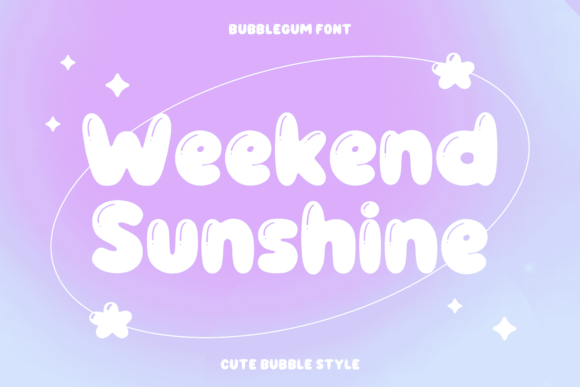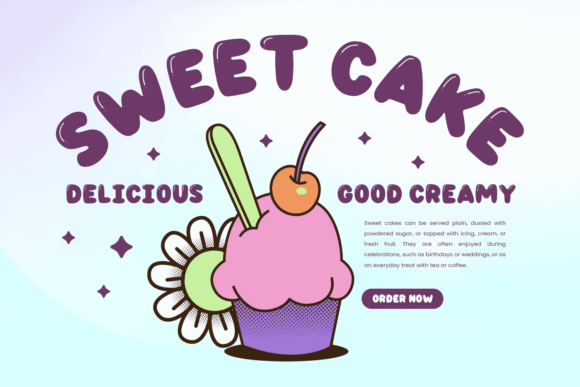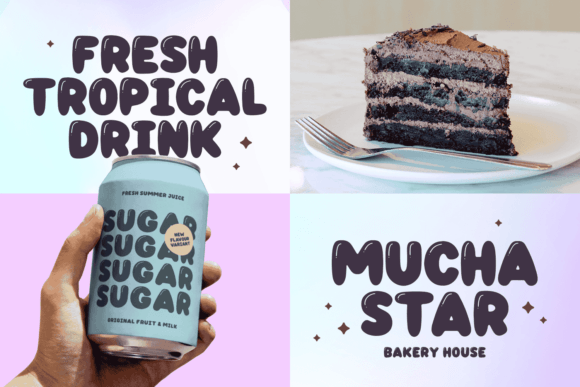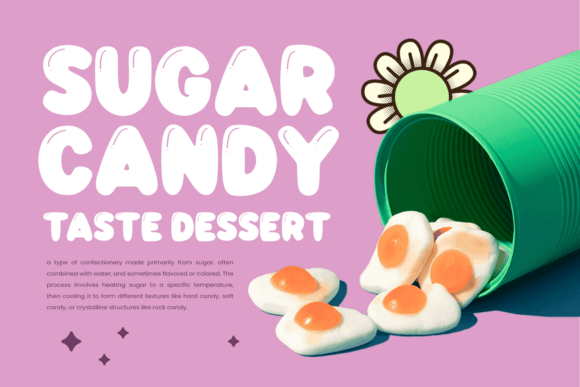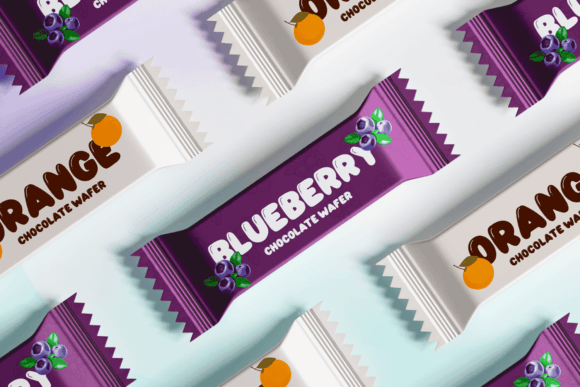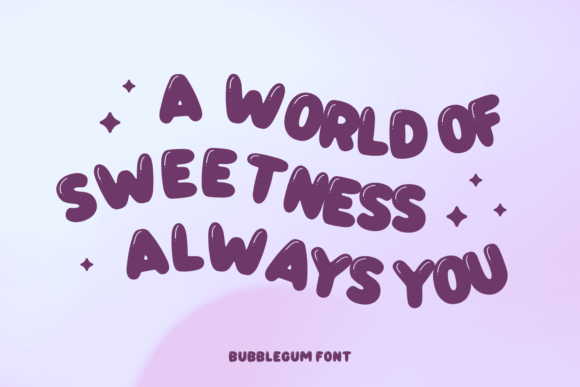
Bubblegum Font: Add a Playful Touch to Your Designs
Are you looking for a font that can add a dash of fun and playfulness to your designs? Look no further than Bubblegum, a delightful display font that is sure to bring a smile to everyone’s face. With its bubbly, rounded letters, this font is perfect for creating a joyful atmosphere that is ideal for a variety of design projects.
What is Bubblegum Font?
Bubblegum is a fun and cute display font that has been carefully crafted to add a playful touch to every design. Its rounded letters and bubbly appearance make it perfect for creating a whimsical and joyful atmosphere that is sure to delight audiences of all ages. Whether you’re working on a project for kids or adults, Bubblegum is the perfect font to add a touch of sweetness and charm.
Bubblegum font is ideal for a wide range of design projects, including:
- Invitations: Whether you’re planning a birthday party, baby shower, or wedding, Bubblegum font is the perfect choice for creating beautiful and playful invitations that set the tone for your event.
- Baby Showers: Add a touch of sweetness and charm to your baby shower designs with Bubblegum font. Its playful and whimsical appearance is sure to delight expectant mothers and guests alike.
- Kids’ Projects: Bubblegum font is perfect for creating fun and engaging designs for kids, including posters, flyers, and activity sheets.
- Social Media Graphics: Add a playful touch to your social media graphics with Bubblegum font. Its bubbly appearance is sure to grab attention and bring a smile to everyone’s face.
Why Choose Bubblegum Font?
There are many reasons why Bubblegum font is the perfect choice for your design projects. Here are just a few:
- Unique and Playful: Bubblegum font has a unique and playful appearance that is sure to stand out from the crowd.
- Easy to Read: Despite its playful appearance, Bubblegum font is easy to read and understand, making it perfect for use in a variety of design projects.
- Versatile: Bubblegum font can be used in a wide range of design projects, from invitations and baby showers to kids’ projects and social media graphics.
- High-Quality: Bubblegum font is a high-quality font that is designed to produce crisp and clear results, even at large sizes.
- Experiment with Colors: Bubblegum font looks great in a variety of colors, so don’t be afraid to experiment and find the perfect color for your design.
- Pair with Other Fonts: Bubblegum font pairs well with a variety of other fonts, so feel free to get creative and find the perfect combination for your design.
In conclusion, Bubblegum font is a fun and playful display font that is perfect for adding a touch of whimsy and joy to your designs. With its bubbly, rounded letters and easy-to-read appearance, this font is ideal for a wide range of design projects, from invitations and baby showers to kids’ projects and social media graphics. So why wait? Download Bubblegum font today and start creating your own playful and engaging designs!